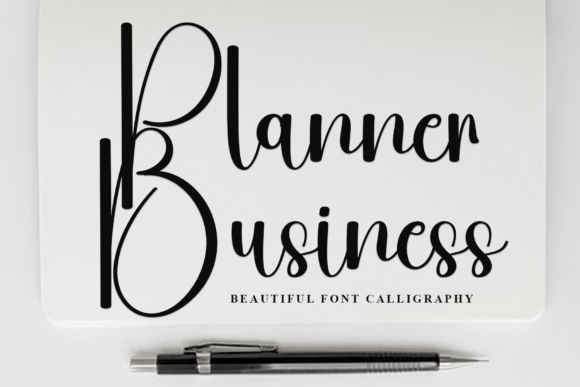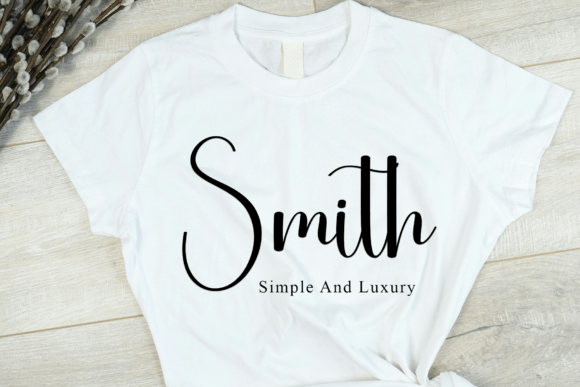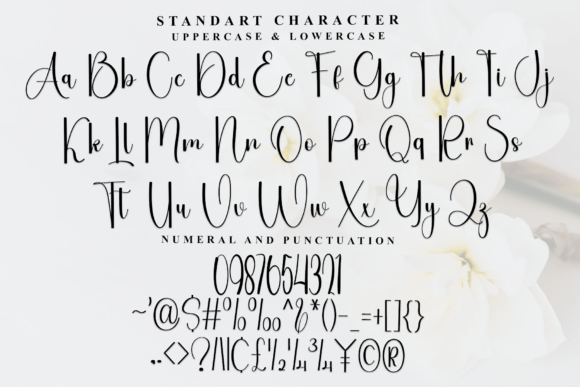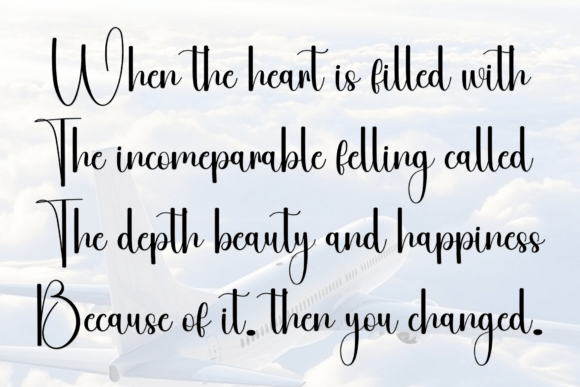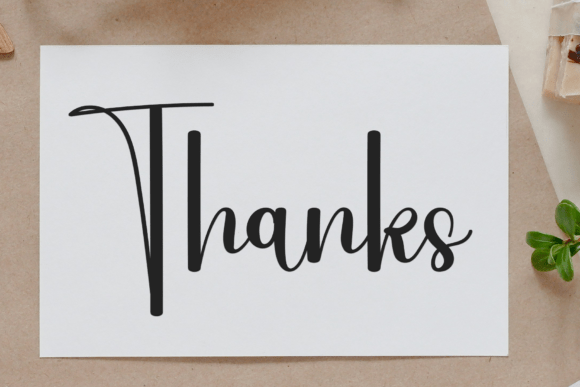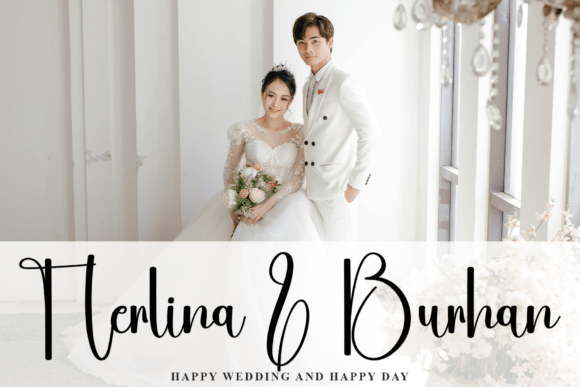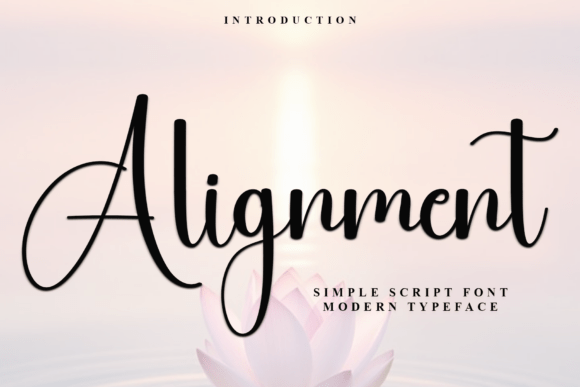
Discover the Beauty of Alignment Font: Elevate Your Designs with a Unique Touch
In the world of typography, a font can make or break a design. It’s the foundation upon which creativity is built, and the right choice can elevate a project from ordinary to extraordinary. If you’re a designer, crafter, or creative looking for a font that stands out from the crowd, look no further than Alignment Font. This beautiful and eye-catching font is designed with a soft, unique touch that will add a special character to your work.
The Distinctive Strokes of Alignment Font
What sets Alignment Font apart is its distinctive strokes, which give it a special character that’s both meaningful and versatile. The font’s unique design makes it perfect for a wide range of applications, from design projects and crafts to other creative works. Whether you’re working on a logo, brochure, or social media graphics, Alignment Font is sure to make your designs shine.
A World of Characters at Your Fingertips
Alignment Font boasts a wide range of characters, making it an ideal choice for designers and crafters who need to create complex and visually appealing text. With various characters to choose from, you can experiment with different styles and combinations to find the perfect fit for your project. This versatility makes Alignment Font a valuable addition to any design toolkit.
Unlock Endless Creative Possibilities
With Alignment Font, the creative possibilities are endless. Use it to add a touch of elegance to your designs, or experiment with bold and playful combinations to create something truly unique. This font is perfect for:
- Brochures, flyers, and other marketing materials
- Crafts and DIY projects
- Web designs and digital products
Whether you’re a seasoned designer or a crafty DIY enthusiast, Alignment Font is sure to inspire your creativity and take your projects to the next level.
Why Choose Alignment Font?
So, what makes Alignment Font the perfect choice for designers and crafters? Here are just a few reasons:
- Unique and eye-catching design: Alignment Font’s soft, unique touch sets it apart from other fonts.
- Versatile and meaningful: The font’s distinctive strokes give it a special character that’s both meaningful and versatile.
- Wide range of characters: With various characters to choose from, you can experiment with different styles and combinations.
With Alignment Font, you can create stunning designs that appeal to a wide range of audiences across different artistic and creative fields.
In conclusion, Alignment Font is a beautiful and eye-catching font that’s perfect for designers, crafters, and creatives looking to add a unique touch to their projects. With its distinctive strokes, wide range of characters, and seamless compatibility across platforms, this natural font style is sure to elevate your designs and inspire your creativity. So why wait? Discover the beauty of Alignment Font today and take your designs to new heights!